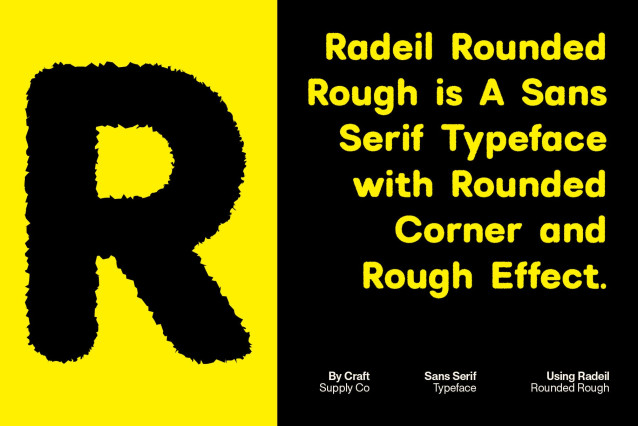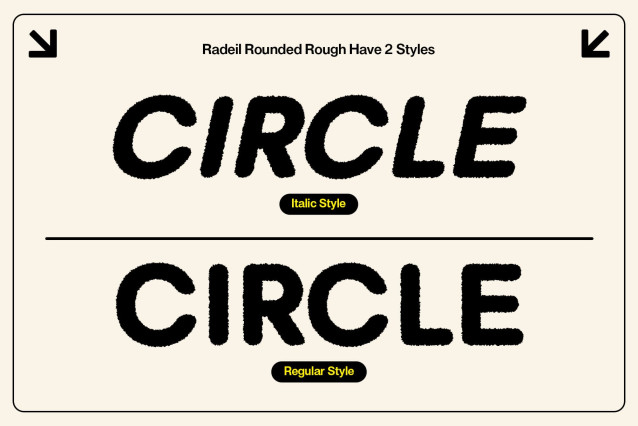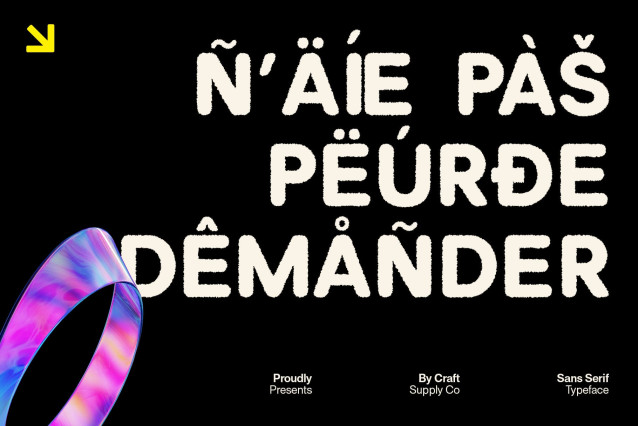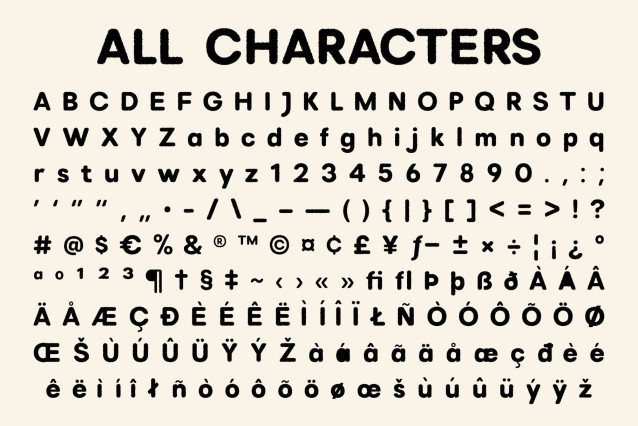
Radeil Rounded Rough Font
Radeil Rounded Rough Font is a modern sans serif font that combines strong geometric shapes with smooth rounded edges. This blend creates a clean, precise look balanced by a subtle rough texture that adds warmth and authenticity.